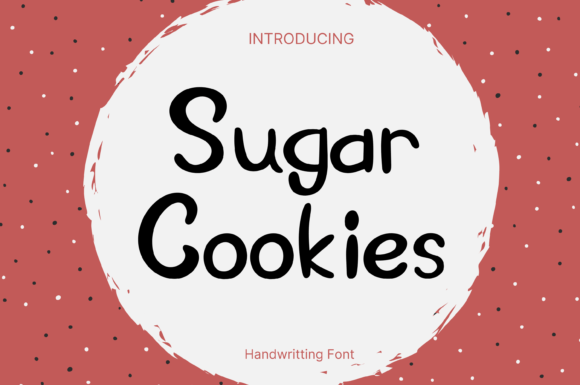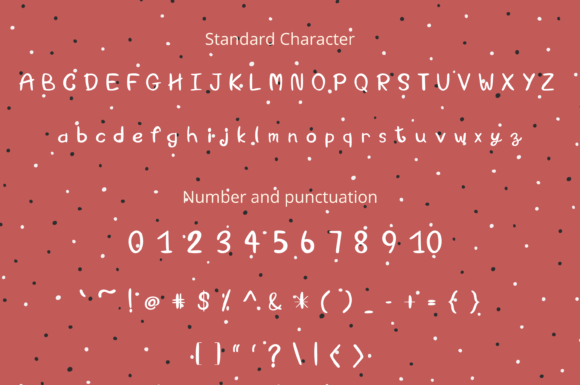
About Sugar Cookies Font
“Sugar Cookies” is a whimsical and clean handwritten font that adds a playful and delightful touch to your creative projects. With its charming and friendly appearance, this font easily complements a wide range of design ideas, making them stand out with a touch of sweetness and creativity.
The versatility of “Sugar Cookies” allows it to seamlessly integrate into various projects, offering a whimsical and approachable aesthetic. Whether you’re working on invitations, greeting cards, branding, social media graphics, or any other creative endeavor, this font proves to be a valuable asset that enhances the overall appeal of your designs.
The clean and handwritten style of “Sugar Cookies” adds a personal and human touch to your text, creating a sense of authenticity and warmth. Its whimsical nature makes it suitable for projects that aim to evoke joy, playfulness, and a lighthearted atmosphere.
Incorporate “Sugar Cookies” into your creative ideas, and observe how it brings a unique charm to your projects. Its ability to stand out and enhance the visual appeal of various designs makes it a go-to font for those seeking a delightful and versatile handwritten typeface.
In summary, “Sugar Cookies” is not just a font; it’s a design companion that adds a whimsical and clean handwritten style to your creative endeavors. Embrace its charm and notice how it transforms your projects, making them more vibrant, friendly, and distinctive in the eyes of your audience.